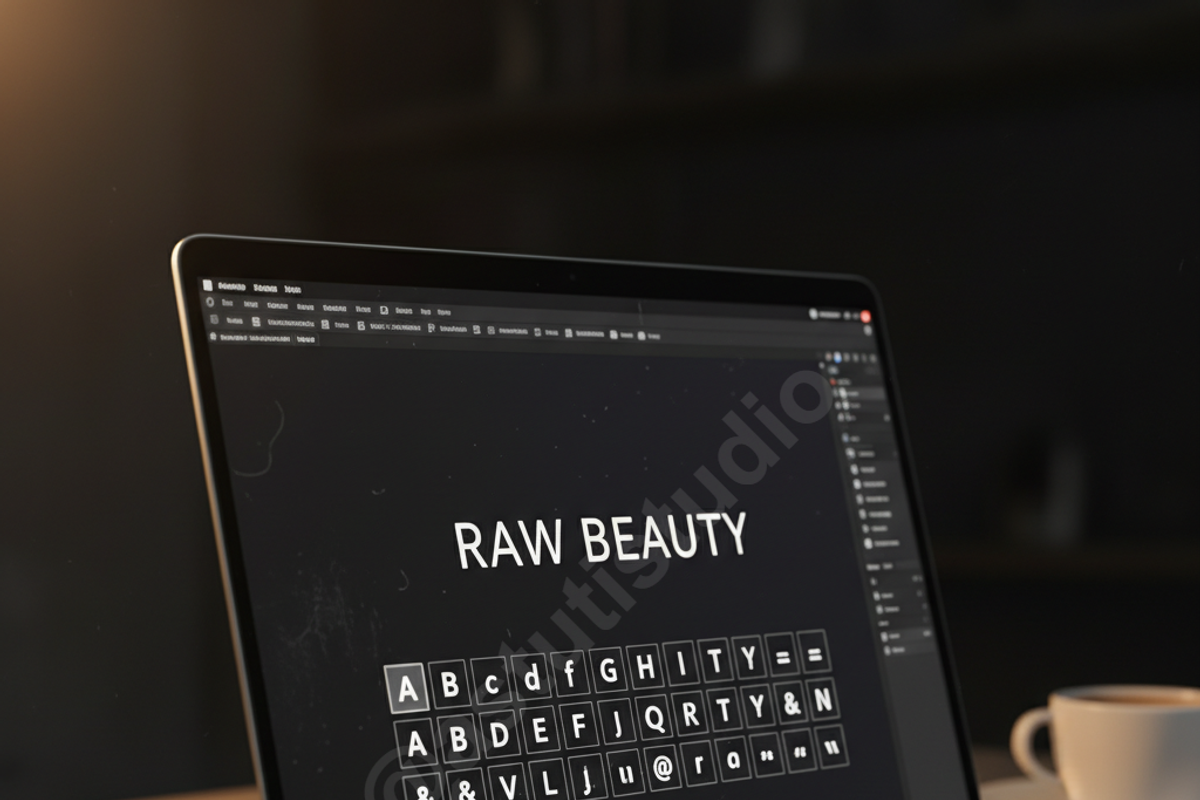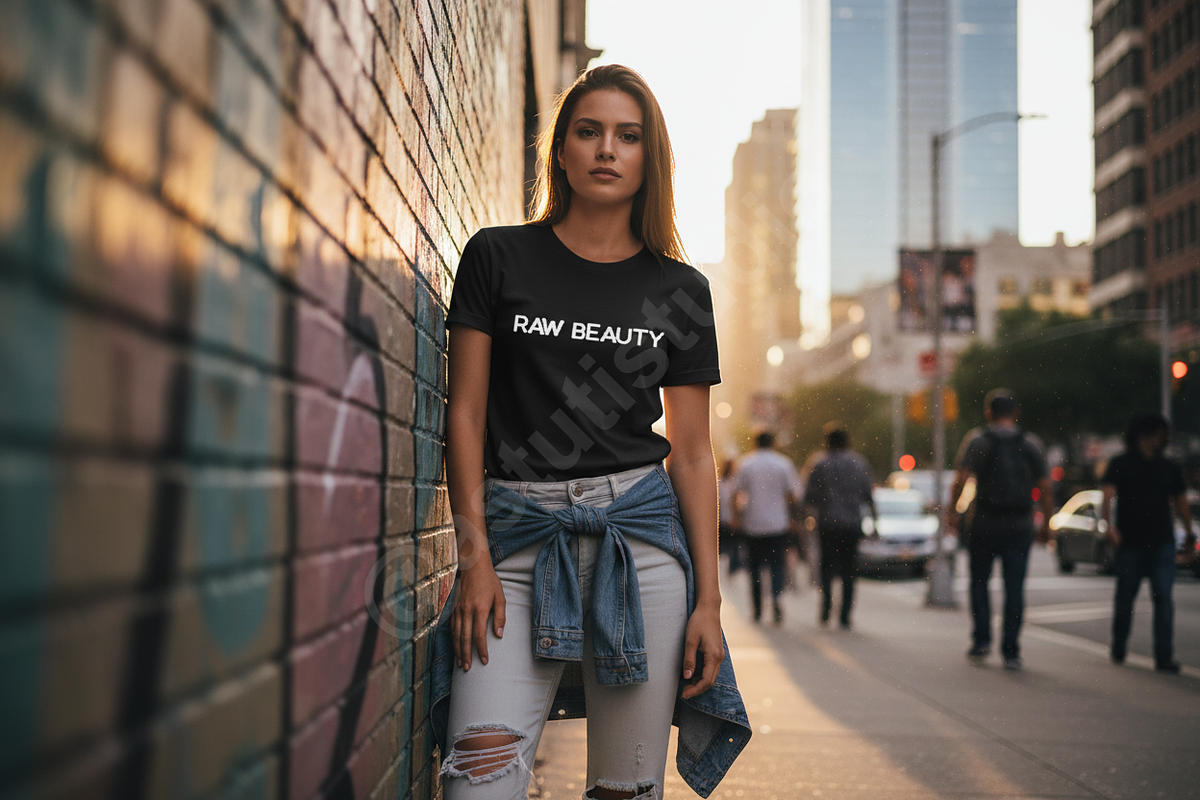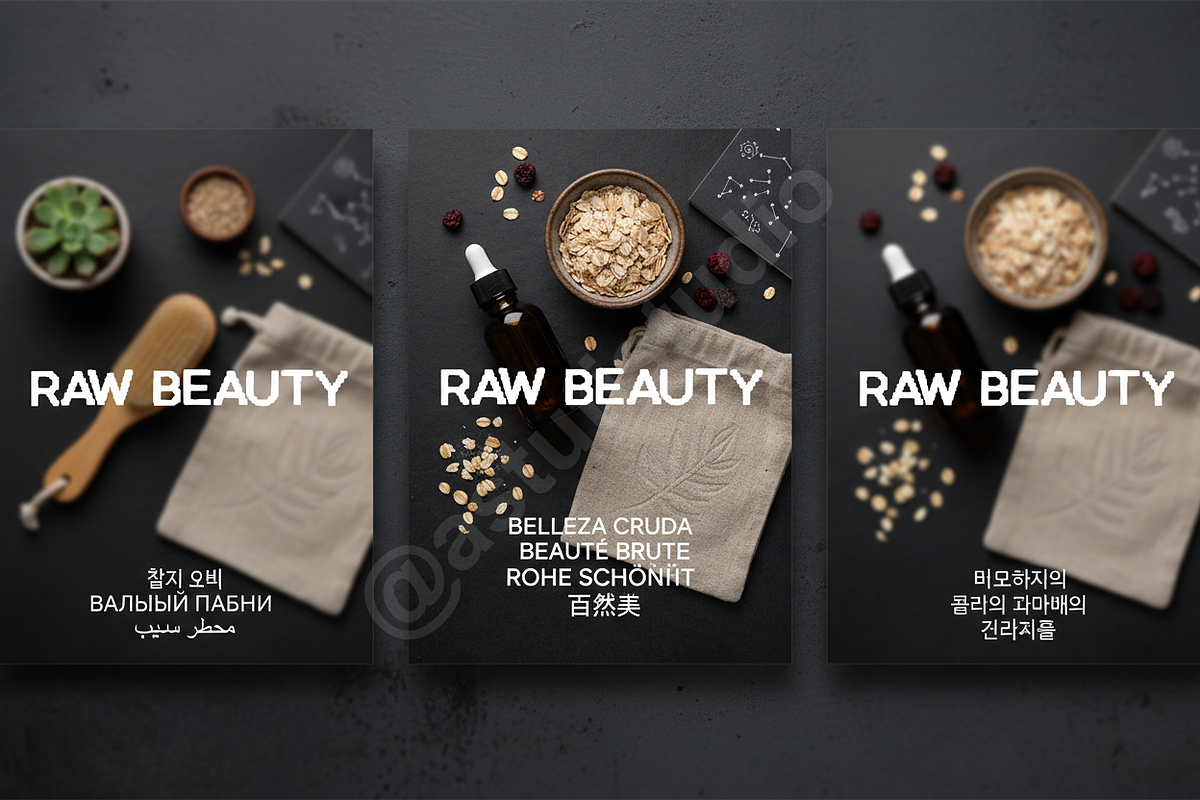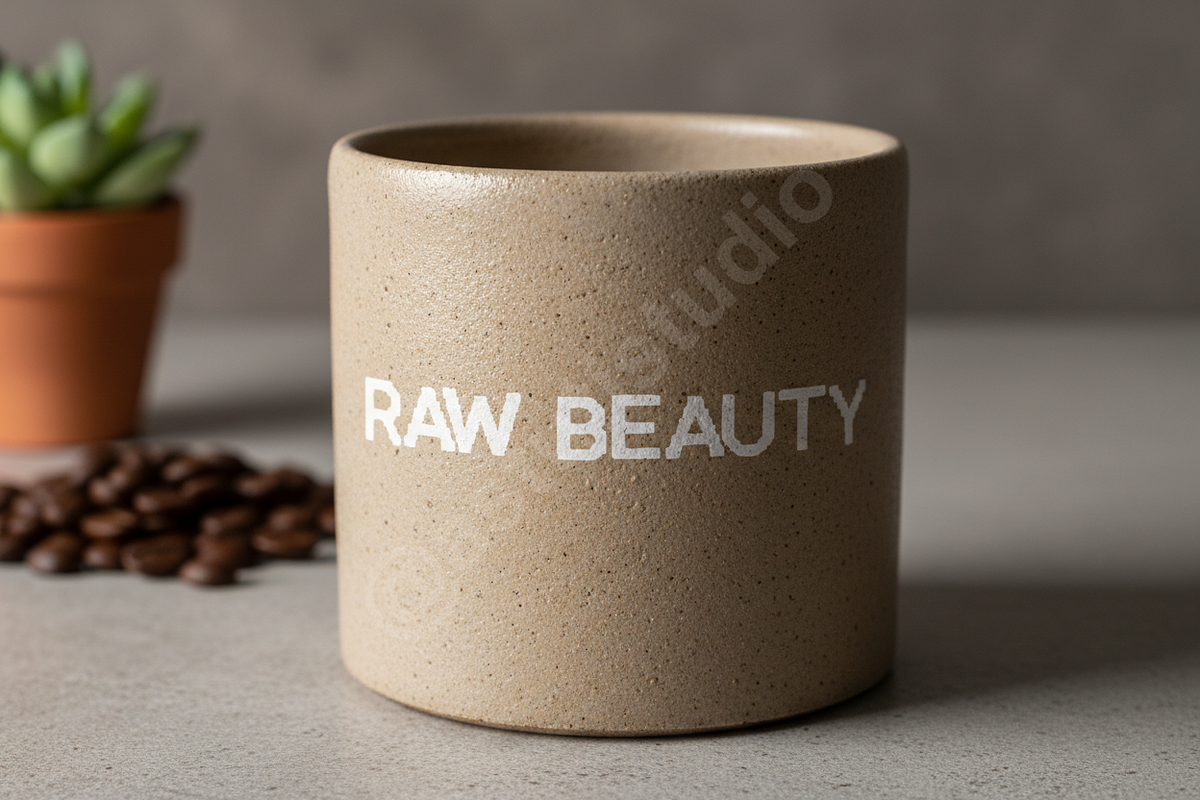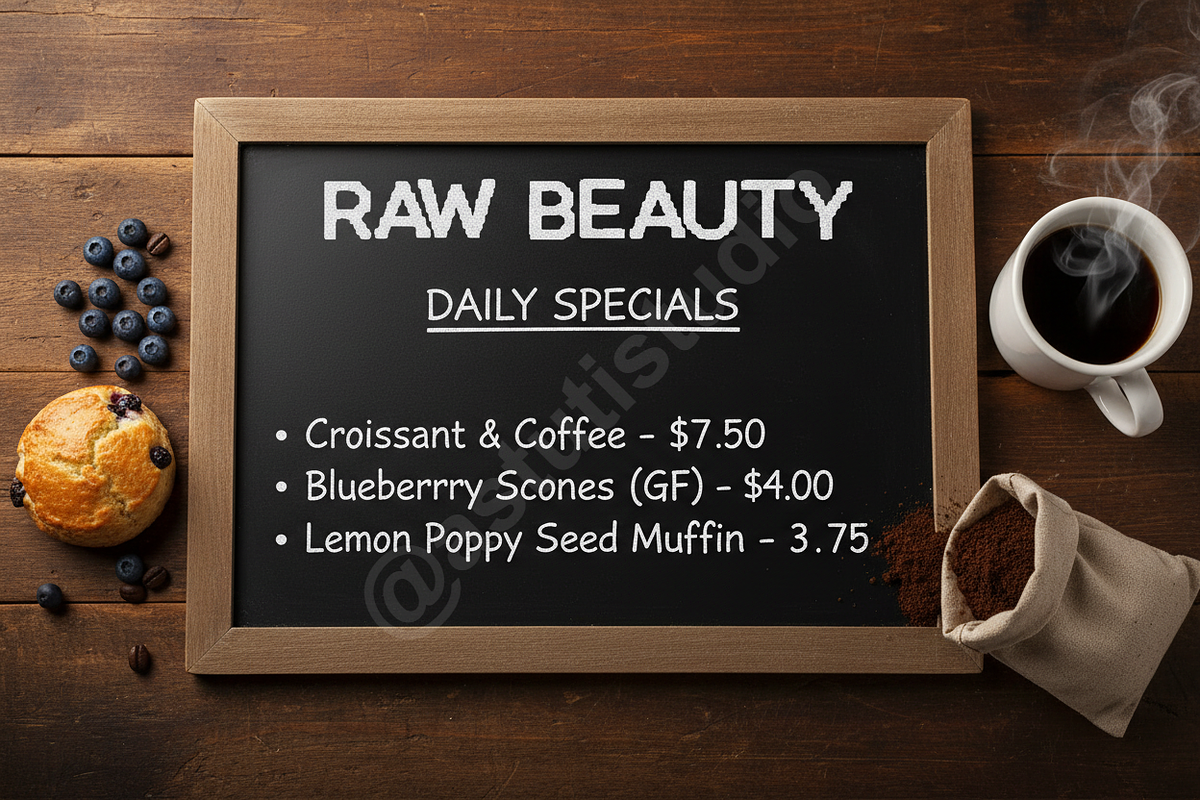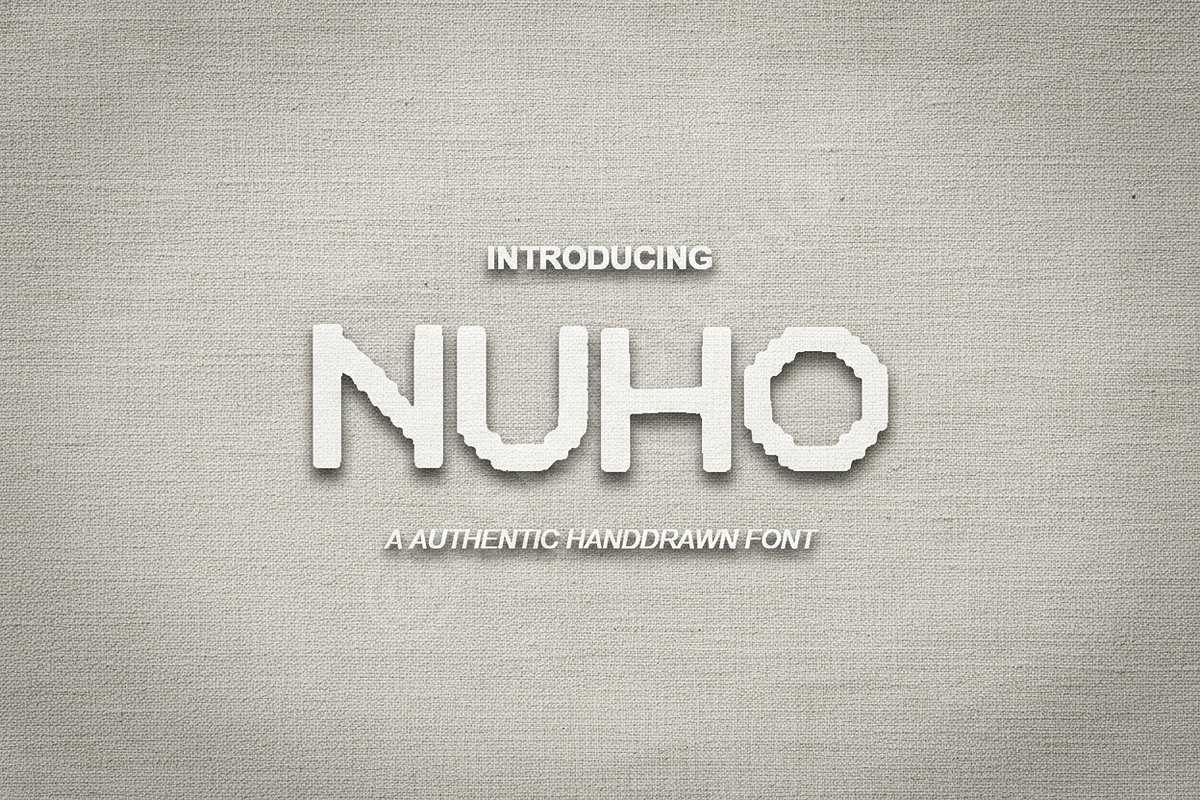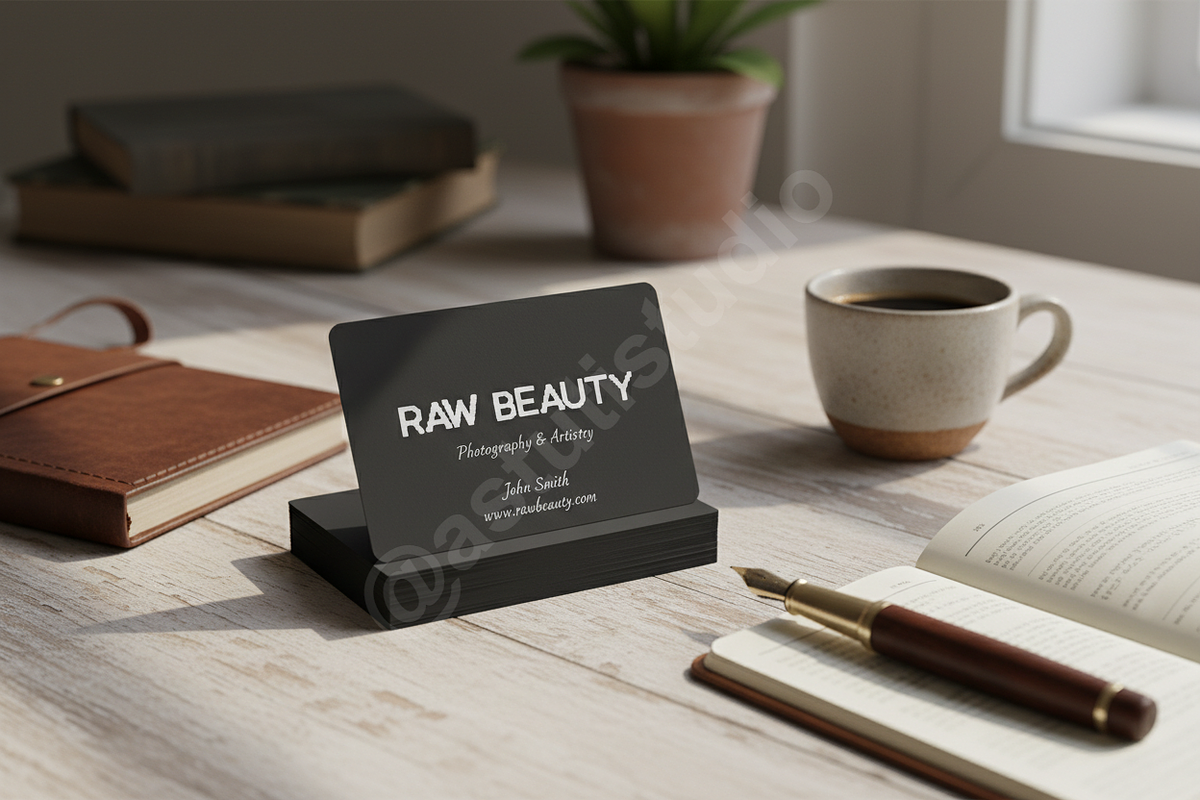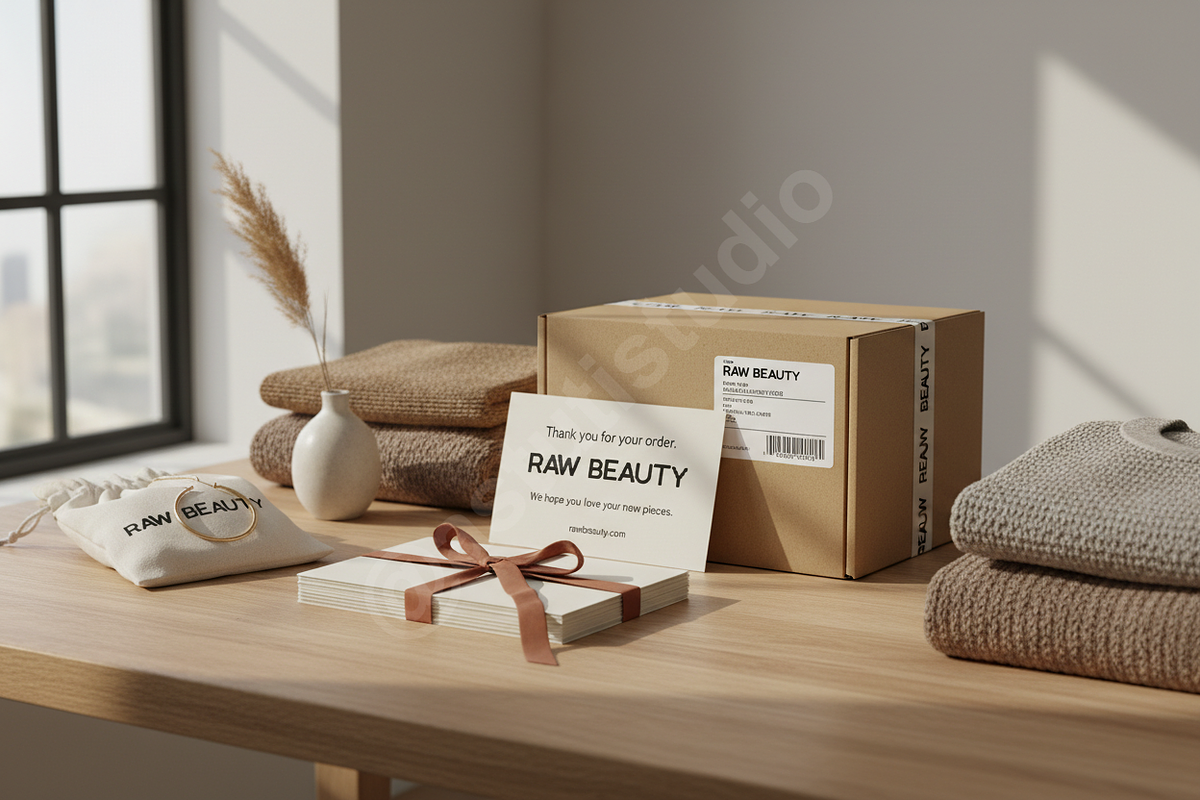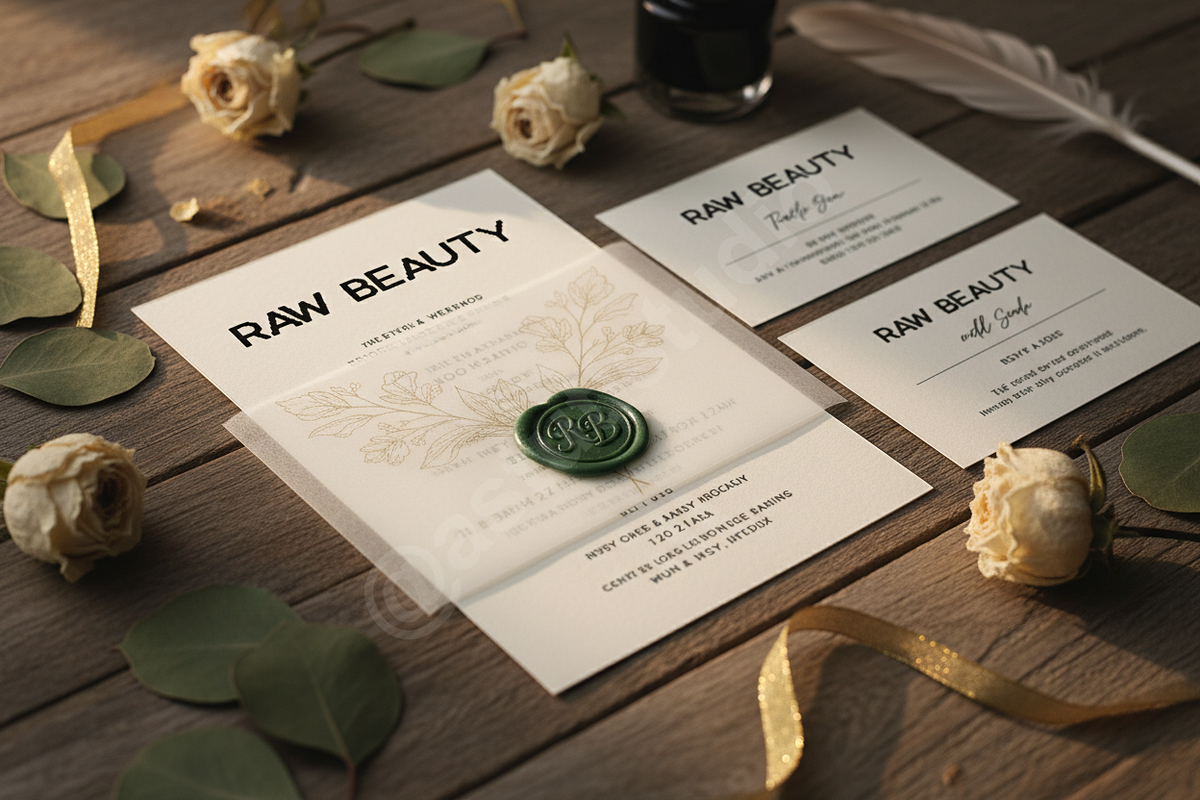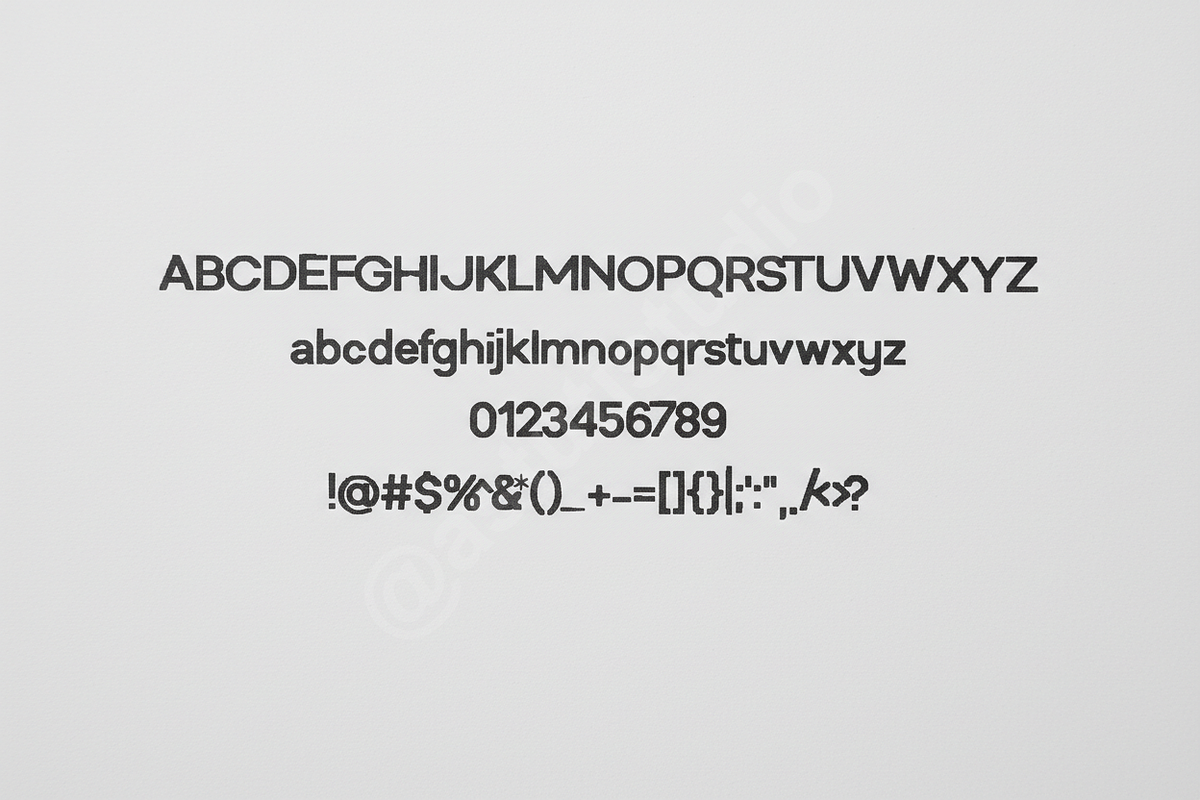
Nuho | Sophisticated Modern Serif Ty
INTRODUCTION Nuho is a high-end serif typeface meticulously crafted for the modern creative. Balancing timeless elegance with contemporary sharp details, Nuho brings an air of sophistication to any design project. Its refined silhouettes and high-contrast strokes make it an essential choice for designers seeking a premium, studio-quality aesthetic.
APPLICATIONS This typeface is perfectly suited for luxury branding, editorial layouts, high-end fashion catalogs, and elevated social media content. Whether you are designing a logo for a boutique agency or a layout for a lifestyle magazine, Nuho provides the versatility and grace required for professional results.
- Elegant high-contrast letterforms
- Custom ligatures and stylistic alternates
- Precise kerning and spacing
- Comprehensive multilingual support
- Clean, legible lines at all sizes